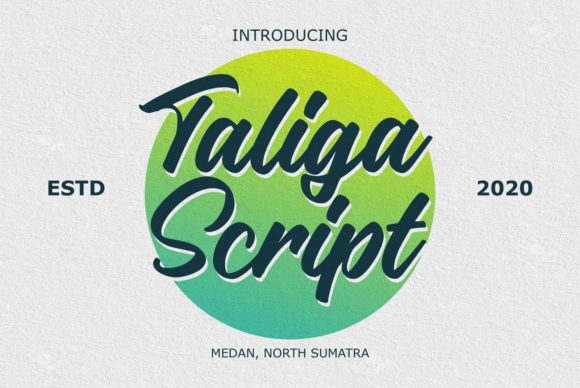
Taliga Font
Introducing Taliga — the font that exudes confidence and sophistication, crafted by the renowned Colative. This mesmerizing script font boasts an assertive yet graceful touch, making it the perfect canvas for your fashion branding.
Taliga's well-rounded letters possess undeniable charm, inviting you to craft captivating designs that will leave a lasting impression. Its unique character and alluring style will elevate your brand to new heights, evoking a sense of luxury and elegance that will resonate with your audience.
Whether you're designing eye-catching logos, crafting captivating social media posts, or creating visually stunning fashion campaigns, Taliga seamlessly adapts to your creative vision. Its remarkable versatility empowers you to express your brand's essence in a way that is both distinctive and unforgettable.
Dive into the world of Taliga and discover the endless possibilities it holds. Let your creativity soar as you craft designs that radiate style, sophistication, and unwavering confidence. Taliga is more than just a font — it's the key to unlocking your brand's true fashionista potential.